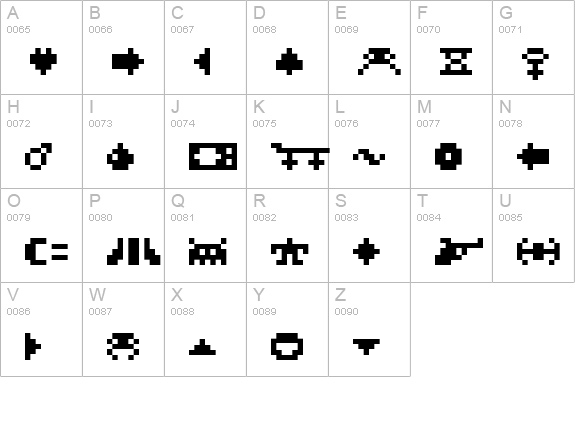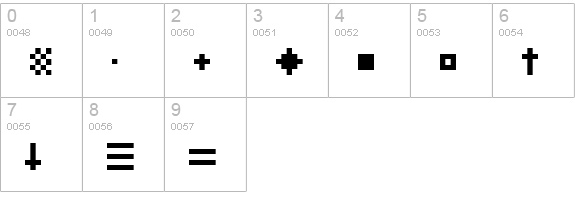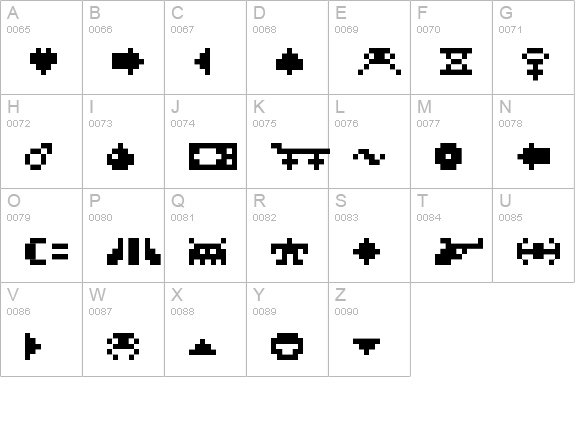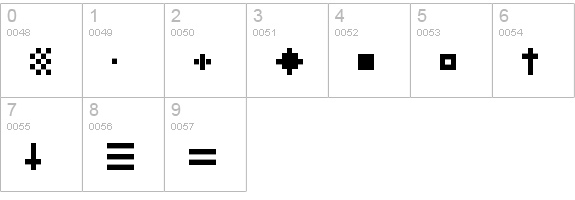
ROTORcap Symbols Font Details
Introducing the mesmerizing ROTORcap Symbols font, a stunning display typeface that is sure to captivate your audience. Inspired by futuristic designs and sleek lines, this font is perfect for creating eye-catching logos, headlines, and branding materials. With its unique symbols and glyphs, ROTORcap Symbols font adds a touch of elegance and sophistication to any project. Best of all, ROTORcap Symbols font is available for free download at FontsMarket.com. Now you can easily access this high-quality font to elevate your designs without breaking the bank. Don't miss out on the opportunity to enhance your creative work with the exquisite ROTORcap Symbols font - download your copy today!